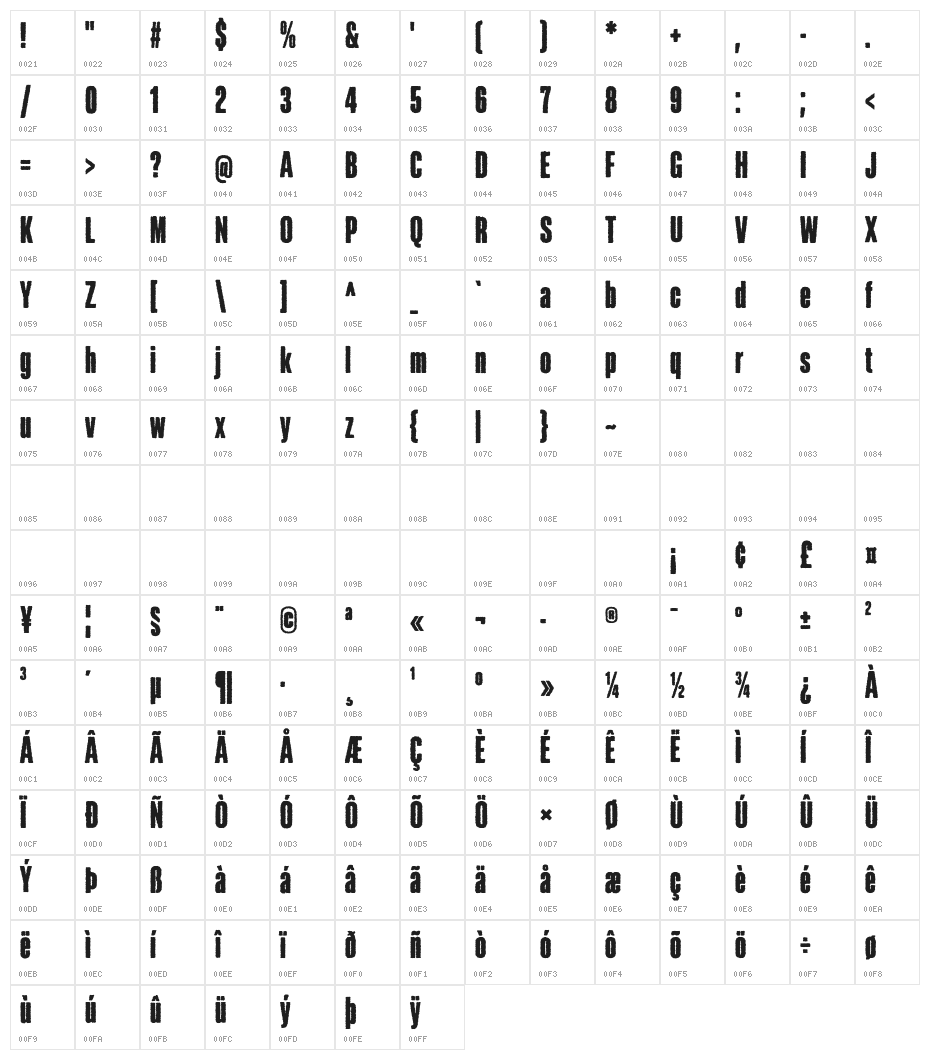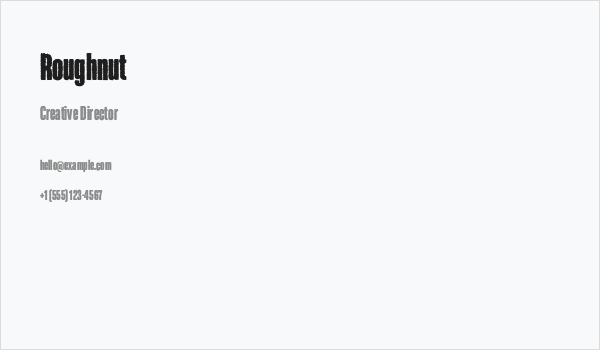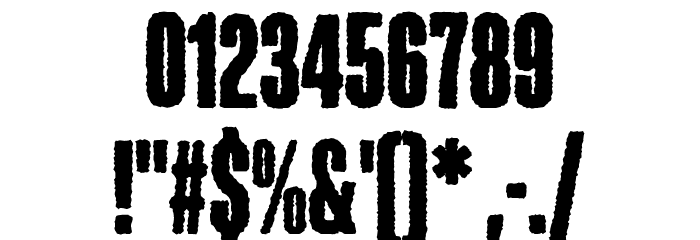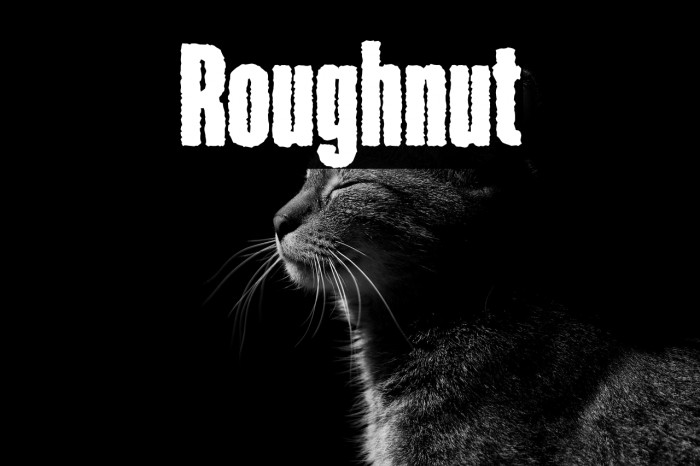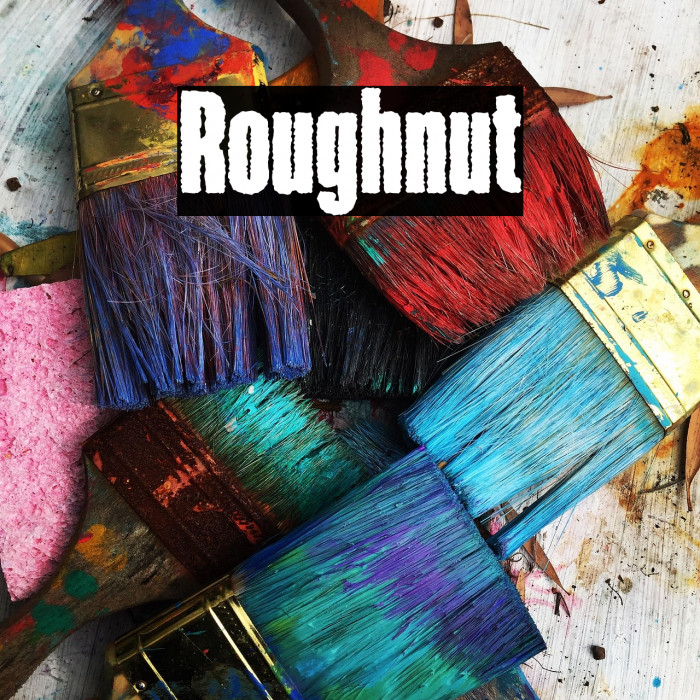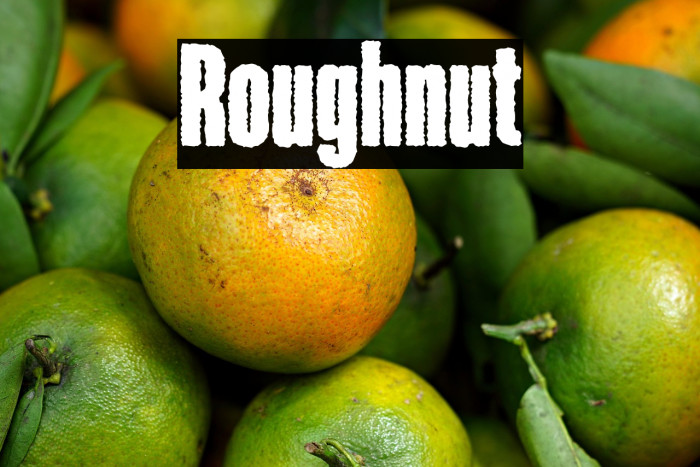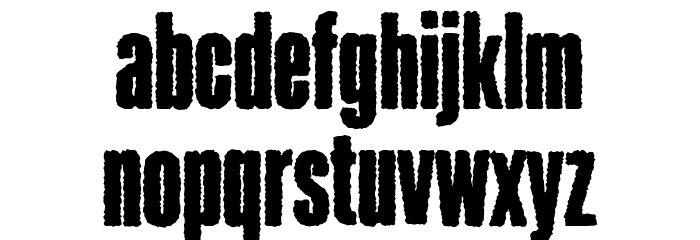
Roughnut Font
Roughnut Description
This font features a bold and rugged appearance, characterized by its textured and distressed look. The letters are thick and blocky, with uneven edges that give it a hand-crafted feel. The uppercase and lowercase letters maintain a consistent style, with a strong presence that commands attention. The numbers and special characters follow the same design, ensuring uniformity across all glyphs. This font's unique style makes it stand out, perfect for projects that require a bold and impactful visual statement.
| Proposed Projects | Ideal for posters, logos, branding, and any design requiring a strong, impactful look. |